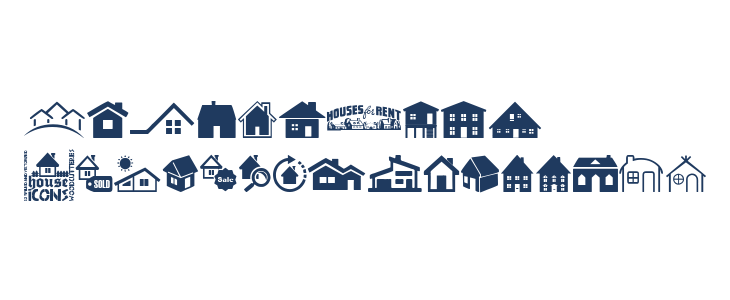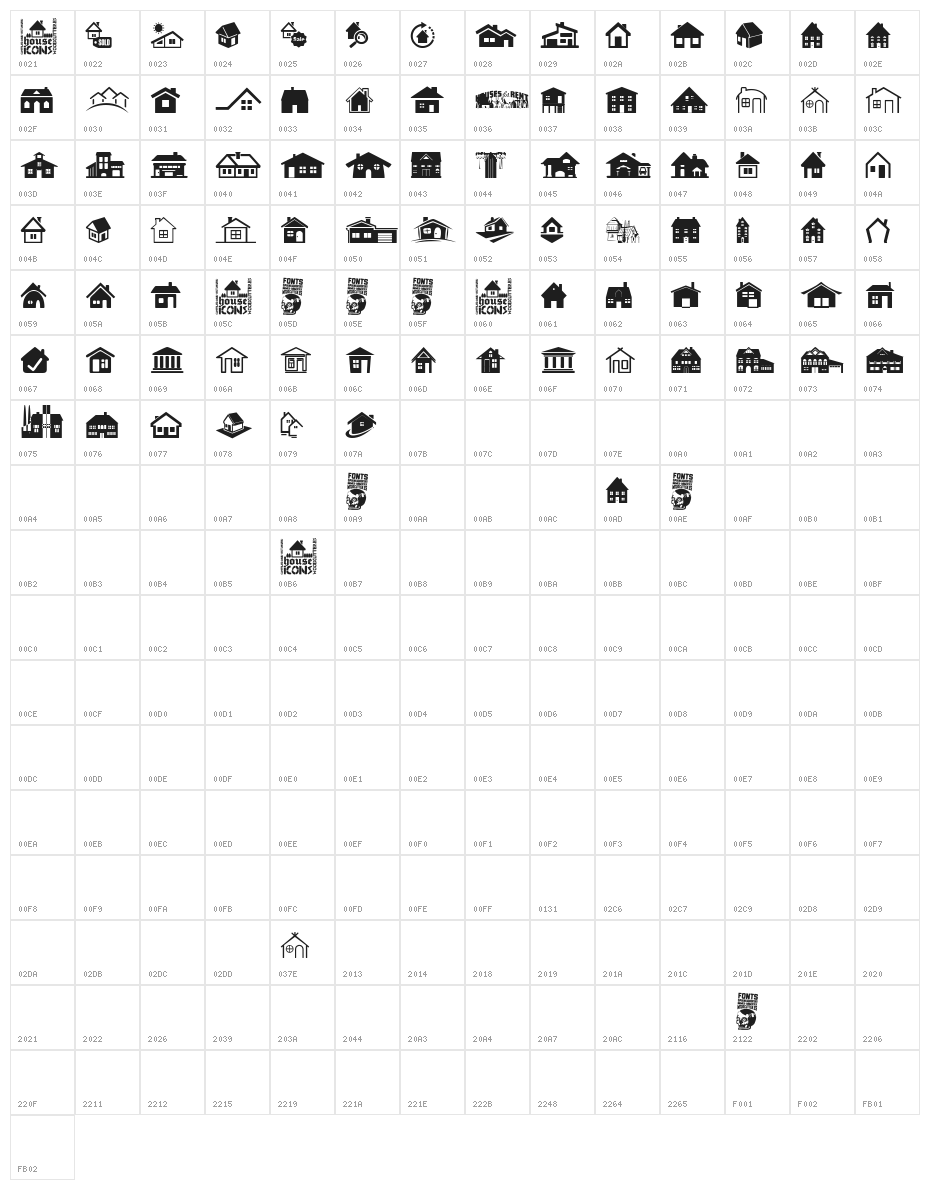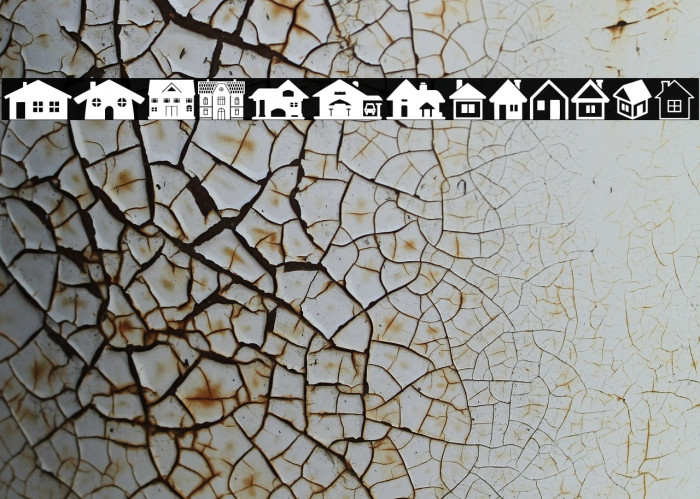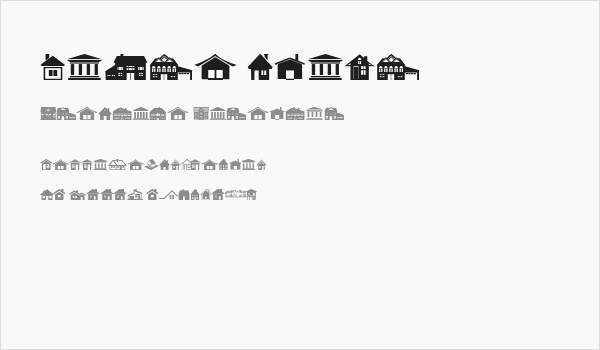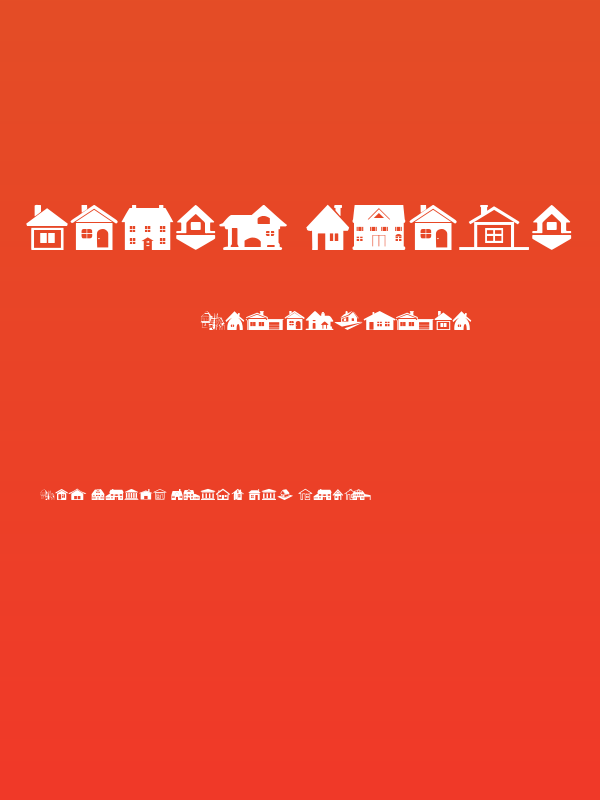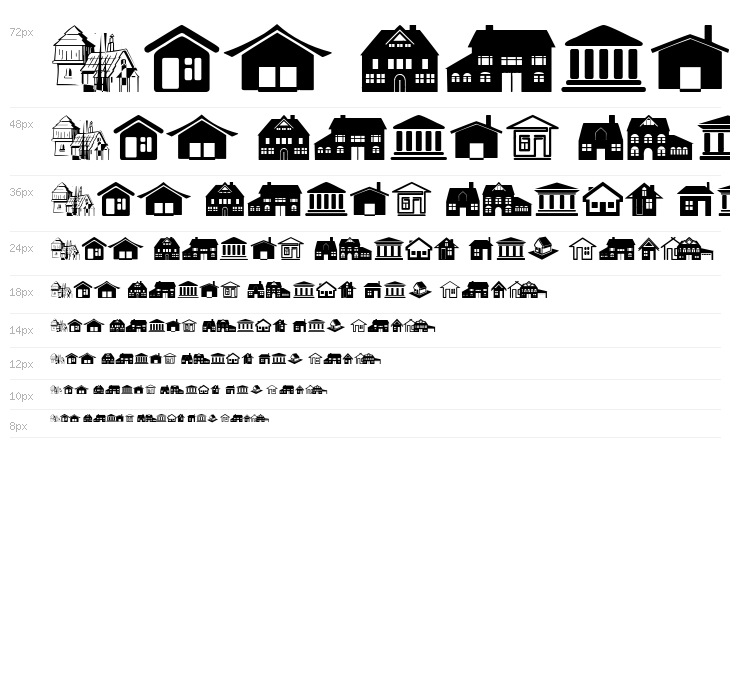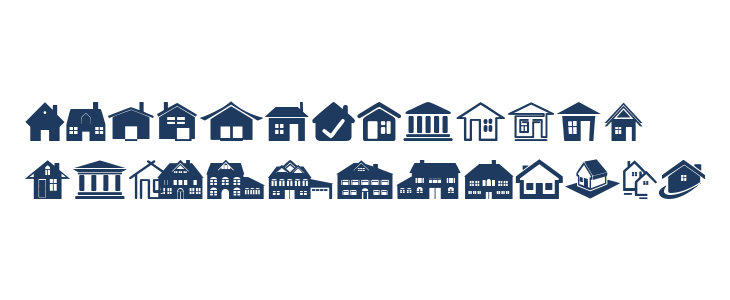
House Icons Font
House Icons Description
A collection of house-themed pictograms and icons, each representing different styles and types of homes, including modern, traditional, and stylized silhouettes, as well as real estate-related symbols such as 'for sale' and 'for rent' signs.
A decorative icon set featuring various house and real estate symbols from Uncategorized fonts.
- Proposed Projects: Ideal for real estate branding, website icons, infographics, property brochures, and signage.
- Overall Style: Decorative, Modern, Pictographic
- Use Case: Logos, Icons, Signage, Infographics